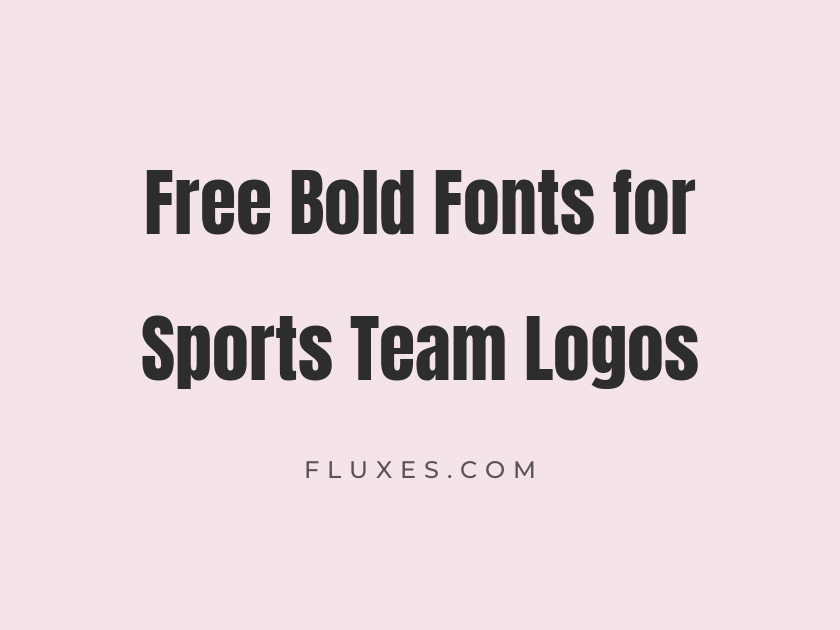
60 Best Free Bold Fonts for Sports Team Logos
Sports branding lives and dies by its typography. A team crest, jersey number, or scoreboard graphic needs a typeface that reads instantly from the bleachers, holds up when stitched, embroidered, or blown up on a stadium banner, and carries enough attitude to intimidate the opposition. The good news is that some of the toughest, most confident display faces in the world are sitting in Google Fonts, completely free to download and license for team merchandise, jerseys, banners, and league websites. Whether you are building a varsity wordmark, a youth league badge, an esports org logo, or a full rebrand for a semi-pro club, there is a heavyweight, condensed, or slab-serif option below that will get the job done.
1. Anton
Anton is close to the default answer whenever a project calls for maximum impact in minimum space. Its ultra-condensed, ultra-bold letterforms were built for headlines, and they translate almost too easily into scoreboard type and championship banners.
It compresses so tightly that it can feel a little heavy in long strings, so save it for short team names, numerals, and single-word rally cries rather than full paragraphs.
2. Bebas Neue
Few free fonts have been adopted by more amateur sports leagues than Bebas Neue. All-caps, tall, and evenly weighted, it has that unmistakable jersey-number look baked right in, and it stays crisp whether it is printed two inches wide on a program or forty feet wide on a stadium wrap.
3. Oswald
Oswald is the workhorse condensed sans that many designers reach for as a free alternative to classic gothic sports lettering. At bold weight it has enough presence for a wordmark, but it also holds up in body copy, making it a rare option that can carry an entire team’s branding system from crest to roster page.
4. Fjalla One
Fjalla One brings a slightly narrower, more understated cousin to the condensed-sans family. It reads as confident rather than aggressive, which suits school athletics programs and community leagues that want strength without shouting.
5. Archivo Black
Archivo Black is a genuinely solid free stand-in for the heavy grotesques that used to require a paid license. It is wide, dense, and unapologetically blunt, which makes it excellent for badge-style logos where the team name needs to sit inside a shield or circle without thinning out at the edges.
6. Passion One
Rounded shoulders and thick, confident strokes give Passion One a friendly aggression, somewhere between a rugby scrum and a comic-book title. Its black weight is the one worth using for logos; the lighter cuts lose the punch that makes it useful here.
7. Alfa Slab One
Alfa Slab One is a full-bodied slab serif with almost no negative space inside its letters, giving it a stamped, branded-iron feel that works well for rugged, old-school team identities. It pairs nicely with a distressed texture for teams leaning into a heritage or throwback look.
Because the slab serifs are so heavy, keep it to short headlines; anything longer starts to look like a wall of ink.
8. Titan One
Titan One has a bubbly, inflated quality that reads as energetic rather than intimidating, which makes it a strong fit for youth leagues, mascots, and any branding aimed at younger athletes and their families.
9. Bungee
Bungee was designed with urban signage in mind, and that DNA shows in its blocky, high-contrast letterforms that look right at home on a street-team or city-league crest. It has real personality without tipping into novelty, which is a harder balance than it looks.
10. Bungee Inline
The inline cut of Bungee adds a second color channel right inside the letters, which is a fast way to build a two-tone team logo without layering separate shapes in your design software.
11. Bungee Outline
This outlined sibling works well stacked over a solid fill version of the same word for a quick badge effect, or used on its own over a photo or jersey texture where a solid letterform would block too much of the background.
12. Bungee Shade
Bungee Shade bakes a drop shadow directly into the glyphs, giving flat digital logos an instant sense of dimension. It is best used sparingly, as a single accent word rather than a whole paragraph.
13. Racing Sans One
As the name suggests, this one leans hard into motorsport, with a slight forward lean and rounded terminals reminiscent of vintage racing decals. It is a natural choice for auto racing clubs, cycling teams, and anything built around speed.
14. Staatliches
Staatliches has a slightly rougher, more vintage character than its condensed peers, with letterforms that feel closer to hand-cut stencil signage. That gives it a scrappy, underdog energy that suits club teams and rec leagues just as well as varsity programs.
Stencil and inline styles like Bungee Inline or Black Ops One work best reserved for a single word or short phrase; save the finer detail work for a companion sans-serif.
Any of these free Google Fonts can carry a sports identity on its own, but the strongest team branding usually comes from pairing a bold, characterful display face with a sturdy, quieter workhorse for everything else. Download a handful, test them against your team colors and mascot artwork, and let the way they hold up at logo size make the final decision.